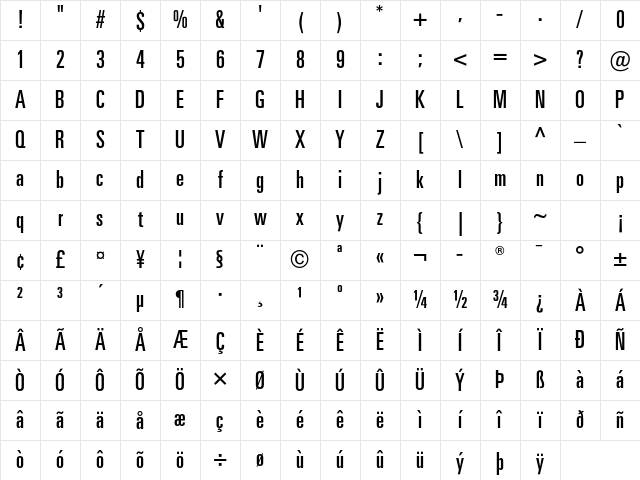
Univers LT W0459 Regular
Foundry: Monotype GmbH
Design Context for Univers LT W0459
Univers LT W0459 is a composed and adaptable typeface that performs quietly and consistently across a wide range of design contexts. Its slender proportions lend an understated elegance to any composition.